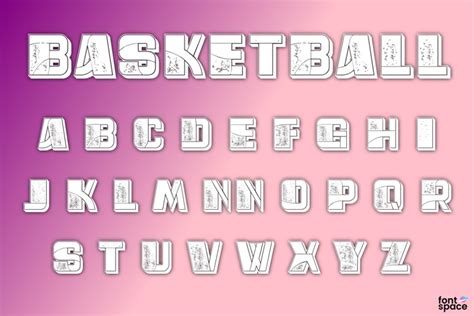
Discover The Perfect IBasketball Font Style
Discover the Perfect iBasketball Font Style
Hey guys, ever wondered how some designs just pop with that undeniable sporty vibe, especially when it comes to basketball? A huge part of that magic, believe it or not, comes down to the iBasketball font style they use. It’s not just about picking any font; it’s about finding that perfect typeface that screams energy, athleticism, and team spirit. In this ultimate guide, we’re going to dive deep into everything you need to know about choosing, using, and absolutely nailing your designs with the right iBasketball font. Whether you’re a seasoned designer or just starting out, get ready to elevate your game and create some truly unforgettable visual experiences. Let’s dribble into the details and make your next project a slam dunk!
What is iBasketball Font Style and Why Does It Matter?
So, what exactly is an iBasketball font style , and why is it such a big deal in the design world? At its core, an iBasketball font style refers to a typeface specifically designed or commonly used to evoke the spirit and aesthetic of basketball. Think about the iconic jerseys, the bold team logos, the energetic game posters, and the electrifying scoreboards—all these elements rely heavily on typography to convey their message. These fonts aren’t just letters; they’re visual representations of power, speed, agility, and teamwork. They often feature strong, impactful letterforms, sometimes with a slightly condensed or athletic feel, and they’re crucial for establishing the right mood and brand identity.
Why does it matter so much , you ask? Well, for starters, the right iBasketball font style can instantly communicate the core values of a team or event. Imagine a sleek, modern, sans-serif font for a high-tech sports brand versus a blockier, more traditional serif font for a vintage-themed league. Each choice sends a clear, distinct message without a single word being read. The importance of these fonts extends beyond mere aesthetics; they play a significant role in brand recognition and fan engagement . When fans see a consistent font style associated with their favorite team, it builds a subconscious connection, reinforcing loyalty and excitement. This is especially true for digital platforms, where quick visual cues are essential for capturing attention. A well-chosen iBasketball font can make a poster more dynamic, a social media graphic more shareable, and a website more immersive. It’s all about creating an emotional resonance that transcends the visual, drawing people into the world of basketball.
Moreover, the origin of these styles often traces back to classic sports aesthetics, from collegiate athletic departments to professional league branding. Early basketball typography often featured strong, slab-serif or block-letter forms that were easy to read from a distance and conveyed a sense of strength and tradition. As the sport evolved, so too did its visual language. Today, we see a broader spectrum, from hyper-modern, geometric fonts that reflect the agility and precision of contemporary players to distressed, grunge-inspired typefaces that capture the raw, streetball culture. The versatility of iBasketball font styles means they can be adapted for a huge range of applications, from designing player names on jerseys to crafting compelling headlines for sports news articles. Without the right font, your design might just look generic, failing to capture that essential basketball essence . That’s why putting thought into your iBasketball font style selection is not just good practice, it’s absolutely vital for creating truly impactful and memorable sports-related content. It ensures your message is not just seen, but felt by your audience, truly hitting home the energy of the game.
Key Characteristics of Top iBasketball Fonts
When you’re searching for that perfect iBasketball font style , you’ll quickly notice some recurring characteristics that define these powerful typefaces. These aren’t just arbitrary design choices; they’re deliberate elements that contribute to the overall athletic and dynamic feel. First up, boldness is almost a non-negotiable trait. An effective iBasketball font style needs to command attention, standing strong and visible whether it’s on a jersey, a billboard, or a digital banner. This boldness often comes from thick strokes and robust letterforms, ensuring high impact and excellent legibility, even at a distance or against busy backgrounds. We’re talking about fonts that look like they’ve been working out, guys, not shrinking violets! They exude confidence and strength, which are core tenets of the sport itself.
Another critical characteristic is a sense of athleticism and movement . While fonts are static, the best iBasketball font styles often incorporate elements that suggest motion, speed, and agility. This can manifest in several ways: a slight slant or italicization, sharp angles that mimic dynamic action, or even subtle curves that imply the arc of a shot or the bounce of a ball. Sometimes, you’ll see letterforms that are slightly condensed or elongated, giving them a streamlined, fast appearance. This isn’t just for show; it’s about conveying the relentless energy and constant motion inherent in a basketball game. Think about how a player cuts across the court—these fonts aim to capture that same decisive, quick energy in their very structure. Furthermore, block letters are a timeless classic within the iBasketball font repertoire. These sturdy, often all-caps styles, provide a foundation of traditional sports aesthetics. They are incredibly versatile, offering a clear, unambiguous presence that works for team names, player numbers, and crucial headings. They symbolize the foundational strength and unity of a team.
Beyond these, you’ll often encounter fonts with distressed or grunge effects . These aren’t for every project, but they’re fantastic for evoking a gritty, streetball, or retro vibe. A distressed iBasketball font style can add character and a sense of history, making a design feel more authentic and lived-in. It’s like the scuff marks on a well-worn basketball court—they tell a story. Then there’s the contrast between modern sleekness and classic tradition . Some iBasketball fonts lean into minimalist, geometric shapes, perfect for contemporary sports brands aiming for a cutting-edge look. Others embrace more elaborate, perhaps even subtly ornamented, designs that harken back to golden eras of basketball, providing a rich, nostalgic feel. Regardless of the specific style, legibility remains paramount. No matter how cool or innovative a font is, if it can’t be read quickly and easily, especially in fast-paced environments like game broadcasts or arena signage, it fails its primary purpose. The best iBasketball font styles strike a perfect balance between expressive design and clear communication, ensuring your message is always understood and your visuals are always impactful. These distinct features ensure that when you pick an iBasketball font, you’re not just choosing letters, you’re choosing an entire aesthetic and message.
Choosing the Right iBasketball Font for Your Project
Alright, now that we know what makes an iBasketball font style tick, how do we actually go about choosing the perfect one for your specific project? This isn’t a one-size-fits-all situation, guys; the right font depends entirely on what you’re trying to achieve. The first thing you need to consider is the type of project you’re working on. Are you designing a high-energy game poster for a championship match? Maybe a bold, dynamic, slightly aggressive font with strong angles would be ideal to convey the intensity. Or are you creating a sleek, professional website for a youth basketball league? In that case, a cleaner, more legible sans-serif with an athletic feel might be more appropriate, offering professionalism without losing the sporty essence. The context of your design is king, so think about where and how your font will be seen.
Next, think about your target audience and the brand identity you’re aiming for. Who are you trying to reach? Are they young, energetic fans who connect with modern, edgy aesthetics, or a more traditional audience that appreciates a classic, established look? The font you choose should resonate with them. A gritty, distressed iBasketball font style might be perfect for a streetball tournament targeting a younger, urban demographic, while a clean, strong block letter font is better suited for a university’s athletics department trying to project tradition and excellence. Your font should be a visual extension of your brand’s personality, speaking volumes before a single word is read. It’s about creating a cohesive visual language that strengthens your overall message and makes your brand instantly recognizable.
Readability is another non-negotiable factor. While aesthetic appeal is important, if your font is too elaborate, condensed, or stylized to be easily read, especially at smaller sizes or in different lighting conditions, it defeats the purpose. Always test your chosen iBasketball font style in various mock-ups and contexts to ensure it performs well. Imagine it on a busy jersey, on a small mobile screen, or as part of a video graphic—does it still convey clarity and impact? Also, consider font pairing . Rarely will a single font carry an entire design. You’ll likely need to pair your primary iBasketball font with a secondary, more neutral font for body text or less prominent information. The key here is contrast and harmony; your secondary font should complement, not compete with, your primary athletic typeface. Finally, don’t forget about licensing . This is super important! Make sure you have the proper license to use the font for your specific commercial or non-commercial project. Free fonts are great, but many premium fonts offer more unique designs and better support. Websites like DaFont, Font Squirrel, Google Fonts, and MyFonts are fantastic starting points, offering a mix of free and paid options. By carefully considering these factors, you’ll be well on your way to selecting an iBasketball font style that truly elevates your design and effectively communicates your message, making your project stand out in a crowded visual landscape and truly nail that sporty vibe.
When it comes to iBasketball font styles , there isn’t just one type; the aesthetic spectrum is incredibly broad, reflecting the diverse facets of the sport itself. Understanding these popular styles can help you pinpoint the perfect match for your design vision. One of the most enduring and universally recognized categories is the Classic Athletic Block Style . Think of the iconic college sports jerseys or traditional team logos. These fonts are characterized by strong, often all-caps, slab-serif or sturdy sans-serif letterforms. They convey a sense of tradition, strength, and unwavering reliability. This iBasketball font style is fantastic for projects that require a timeless, established look, perfect for institutional branding, historical tributes, or any design that wants to emphasize heritage and enduring spirit. They’re incredibly legible and create an immediate sense of authority and authenticity, making them a go-to for foundational sports graphics that need to be clear and impactful.
Then we move into the realm of Modern Geometric & Condensed Styles . These are the sleek, often sans-serif fonts that boast clean lines, sharp angles, and a slightly condensed feel. They embody the speed, precision, and contemporary nature of today’s basketball. This iBasketball font style is perfect for cutting-edge sports brands, digital media, or any project aiming for a dynamic, futuristic, and high-performance look. They often have a sophisticated simplicity that makes them adaptable across various platforms, from website headers to app interfaces, ensuring your design feels current and energized. Their streamlined appearance speaks to efficiency and innovation, qualities highly valued in modern sports. These fonts are all about movement and a forward-thinking attitude, giving your designs an immediate edge that feels both professional and incredibly stylish.
For those seeking a more edgy or rebellious vibe, the Gritty & Distressed Styles are absolutely essential. These iBasketball font styles intentionally incorporate textures, roughened edges, or grunge effects to simulate wear and tear, or even urban street art. They evoke the raw energy of streetball, the passion of grassroots leagues, or the hard-fought battles on the court. If you’re designing for a casual league, a street culture event, or a brand that wants to stand out with an unapologetically bold and unpolished aesthetic, these fonts are your MVP. They add character, a sense of history, and an authentic,